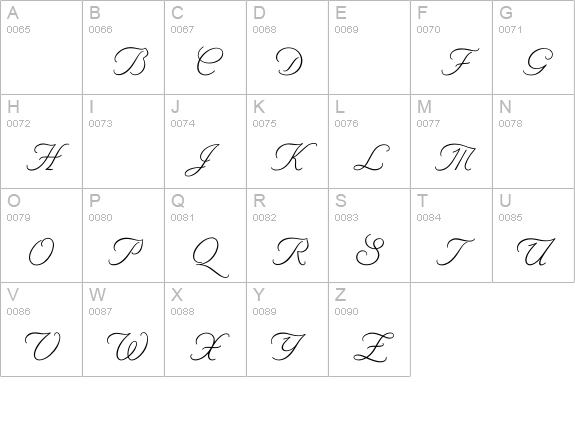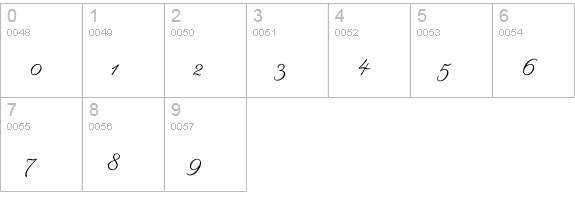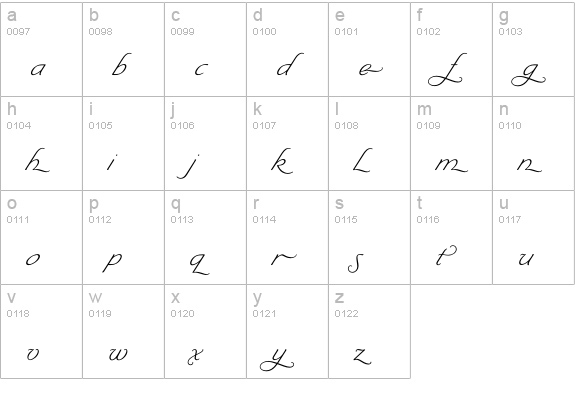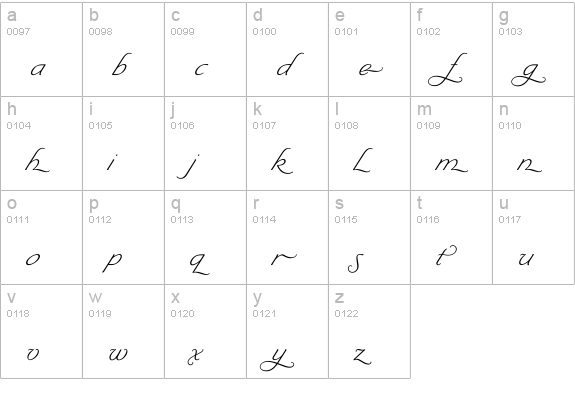
ByronLightSwash Font Details
ByronLightSwash font is a graceful and elegant typeface that exudes sophistication and charm. With its delicate swashes and flowing strokes, this font adds a touch of luxury to any design project. Perfect for invitations, wedding stationery, and high-end branding, ByronLightSwash stands out for its timeless appeal and refined appearance. What makes ByronLightSwash font even more appealing is that it is available for free download at FontsMarket.com. This means that you can easily access this beautiful typeface without any cost, making it a fantastic option for designers, creatives, and anyone looking to add a touch of class to their work. Don't miss out on the opportunity to enhance your projects with the elegance of ByronLightSwash font - download it for free today at FontsMarket.com!